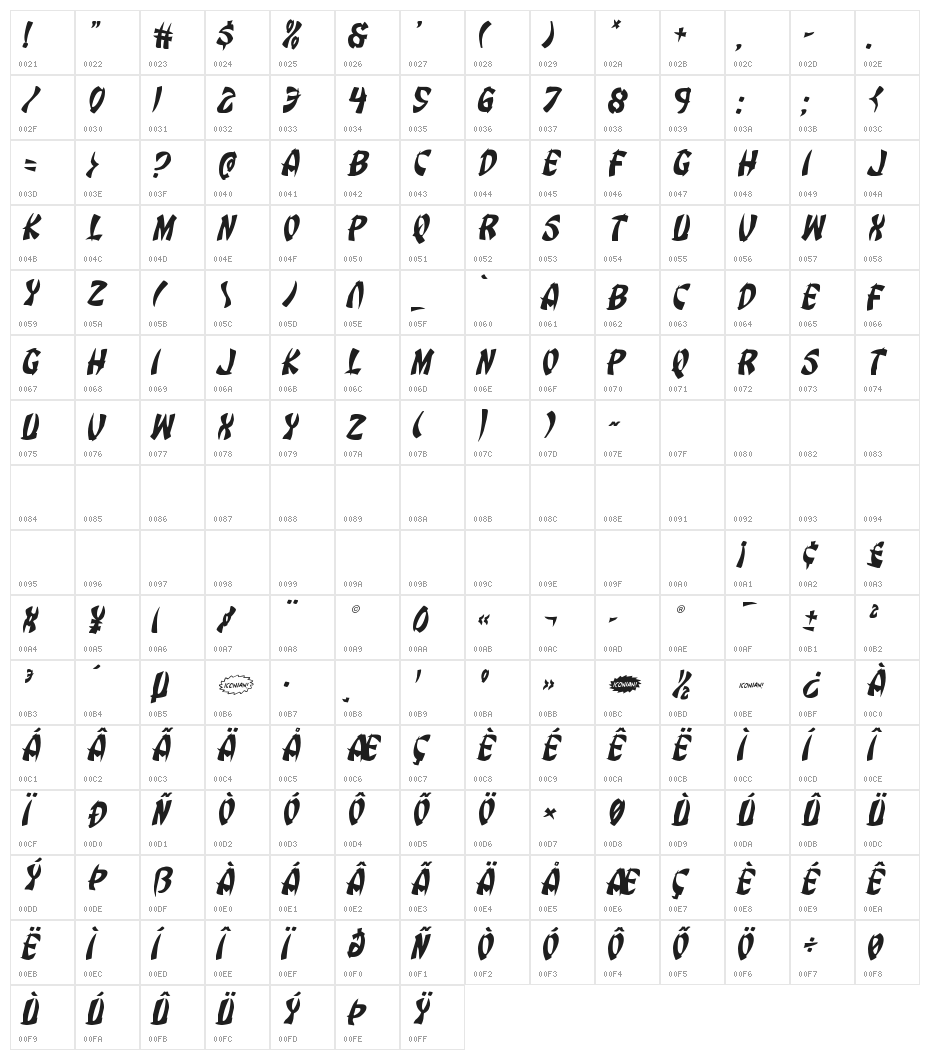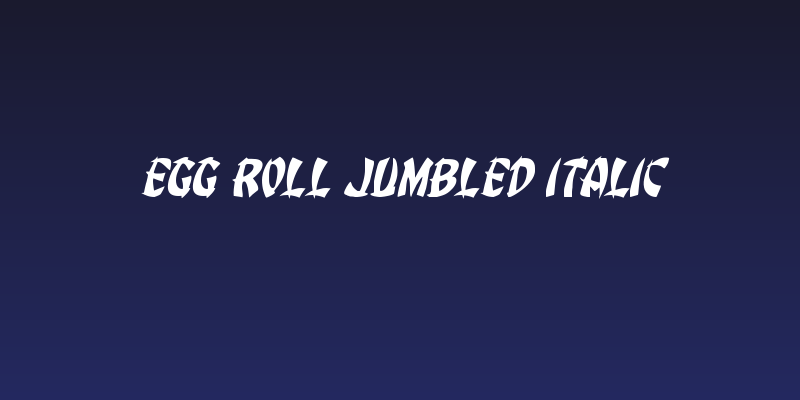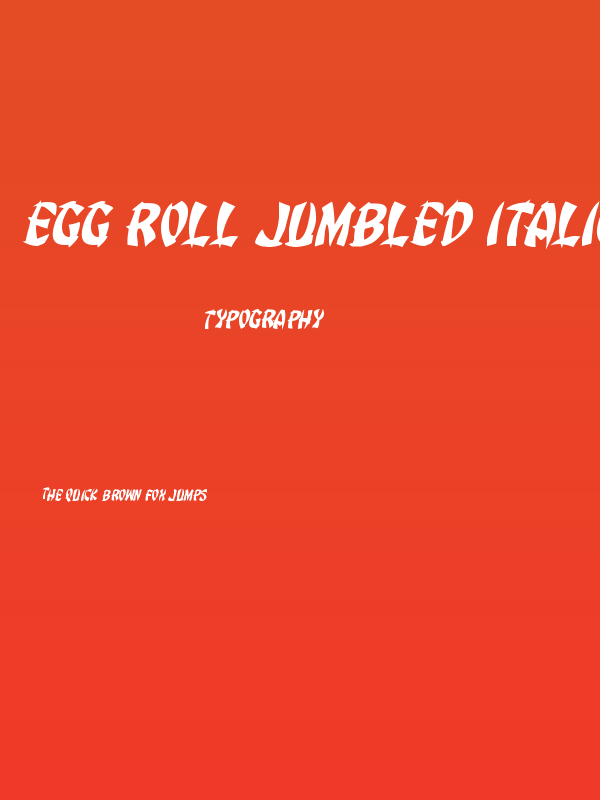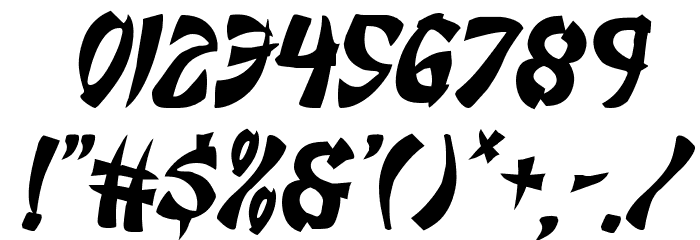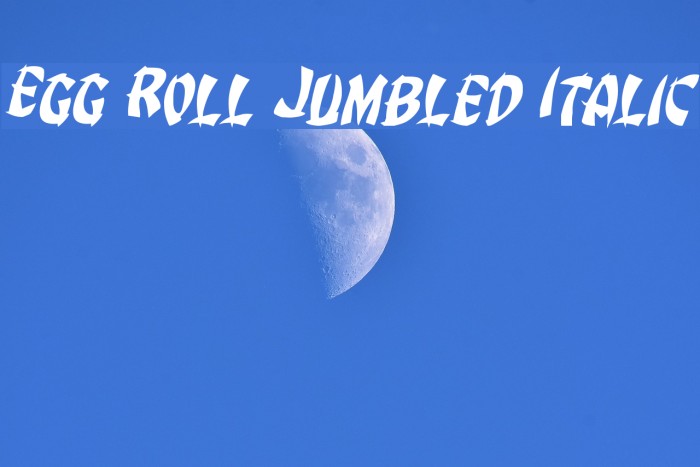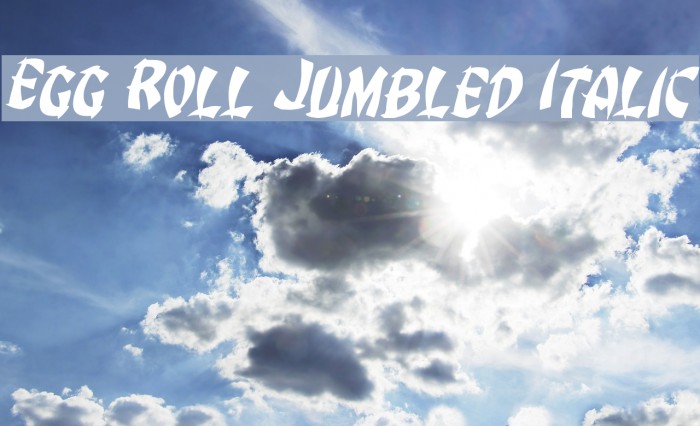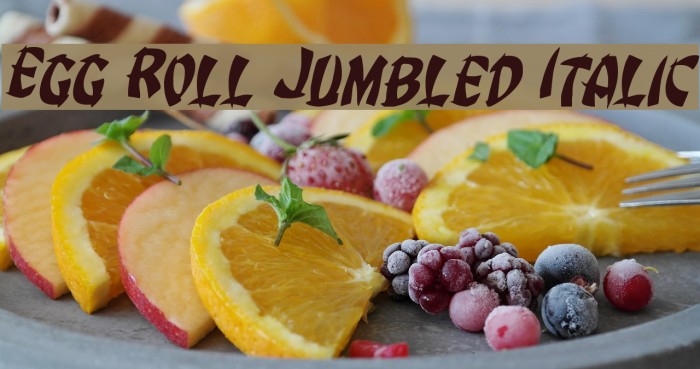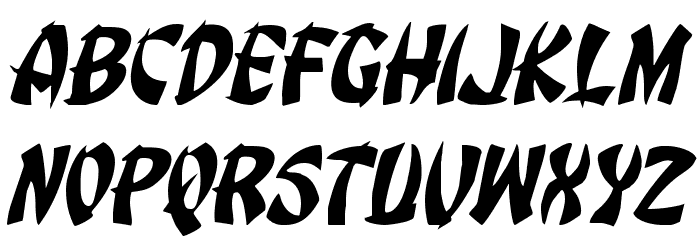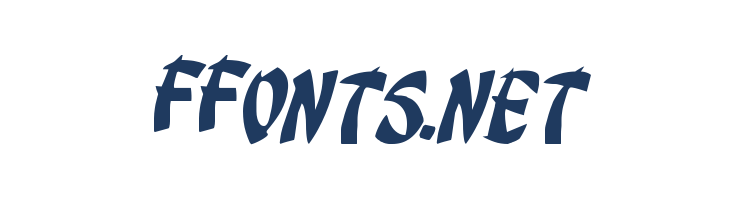
Egg Roll Jumbled Italic Font
Egg Roll Jumbled Italic Description
This font features a bold and dynamic style with a strong italic slant, giving it a sense of movement and energy. The characters are thick and robust, with sharp, angular edges that create a striking visual impact. The uppercase and lowercase letters maintain a consistent style, with the uppercase being particularly prominent and eye-catching. Numbers and special characters are equally bold, ensuring uniformity across all text elements. The overall design is reminiscent of graffiti or street art, making it ideal for projects that require a bold, unconventional look.
| Overall Style | Modern, Decorative |
| Proposed Projects | Ideal for posters, album covers, street art designs, and any project needing a bold, edgy aesthetic. |